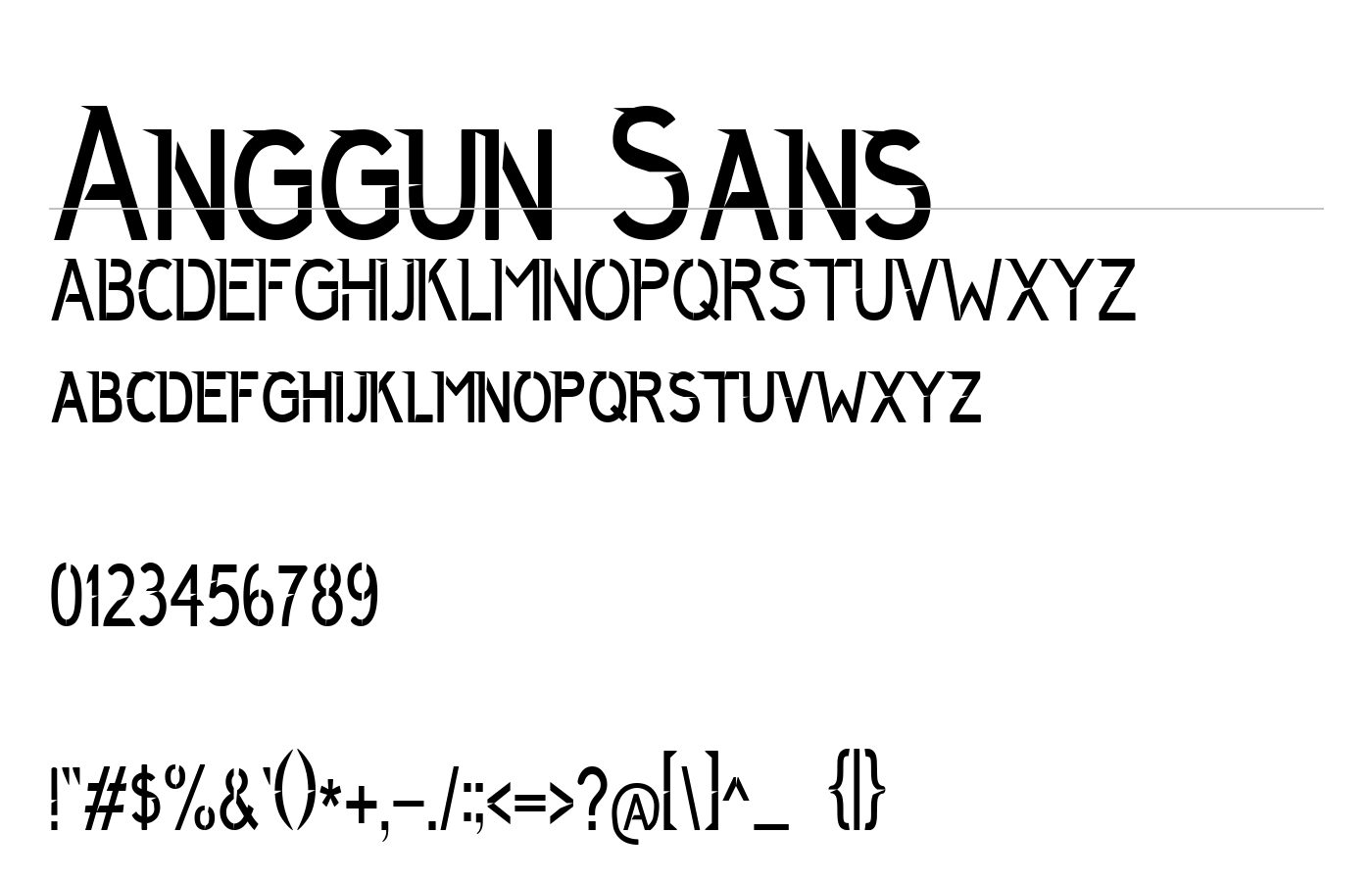
Anggun Sans is a distinctive sans serif font with a tall, condensed structure and striking high contrast between thick and thin strokes. Its sharp, almost art deco-inspired letterforms give it an elegant yet modern personality, making it ideal for eye-catching headlines, logos, and branding that seek a bold, sophisticated look. This font works well where a unique and stylish impression is needed, especially in fashion, editorial design, and upscale product packaging.
Anggun Sans Font
About Anggun Sans Font